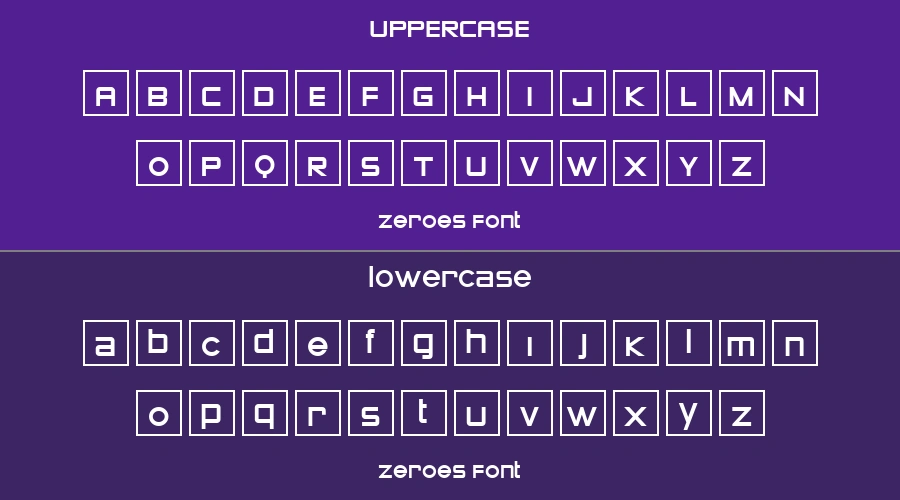
About Zeroes Font
Designed with precision, Zeroes Font merges clean corners with expressiveness in every character. This versatility makes it particularly effective for engineering drawings, where expressiveness and aesthetic refinement directly impact communication quality. Each letterform demonstrates meticulous craftsmanship.
Technical excellence shines through elements like tapered strokes and standard ligatures, enhancing typographic versatility. In data tables settings, Zeroes Font proves its worth through superior reliability. The thoughtful execution of x-height and modern touches ensures professional results.
Zeroes Font |